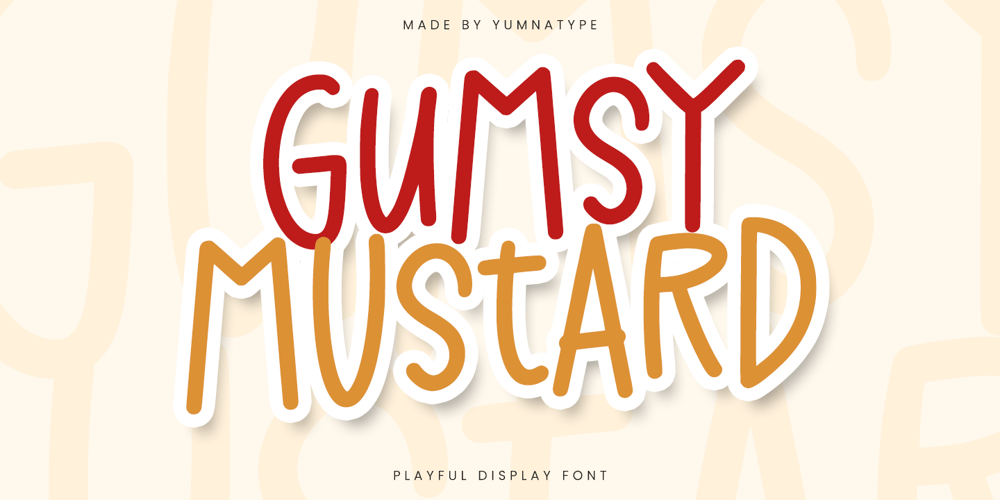
Gumsy Mustard Font Family was designed by Donis Miftahudin and published by Yumna Type. Gumsy Mustard contains 1 styles and family package options. Gumsy Mustard is a charming display font that brings a playful and light-hearted touch to your designs. With its lightweight and very low contrast, Gumsy Mustard maintains a delightful simplicity that is both inviting and eye-catching. The font’s constant letter proportions create a harmonious and consistent look. In addition, enjoy the features here.Features: Ligatures Multilingual Supports PUA Encoded Numerals and Punctuations Gumsy Mustard fits in headlines, logos, posters, flyers, branding materials, print media, editorial layouts, and many more designs. Find out more ways to use this font by taking a look at the font preview.Thanks for purchasing our fonts. Hopefully, you have a great time using our font. Feel free to contact us anytime for further information or when you have trouble with the font. Thanks a lot and happy designing.